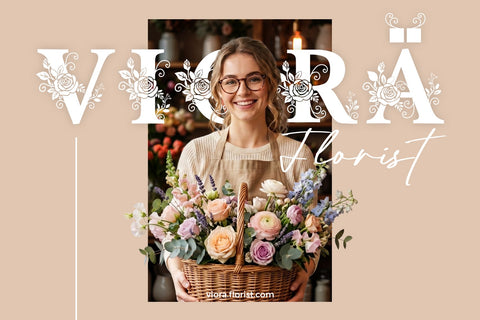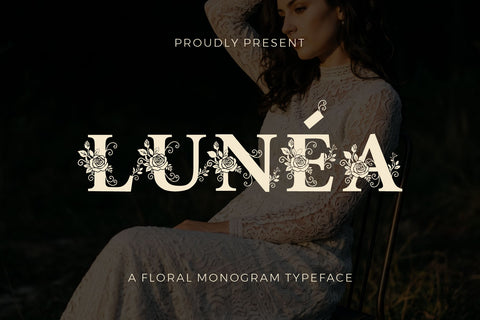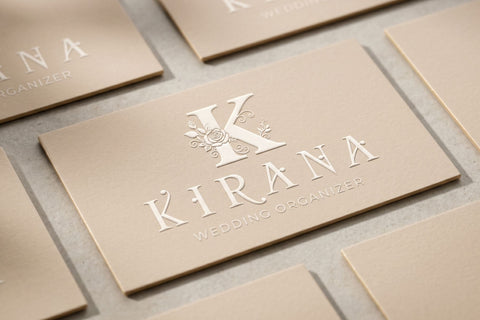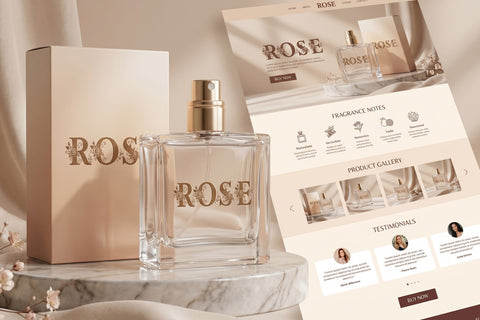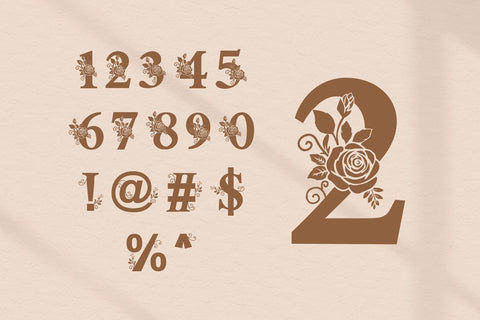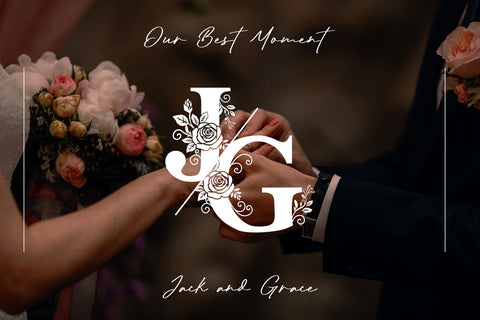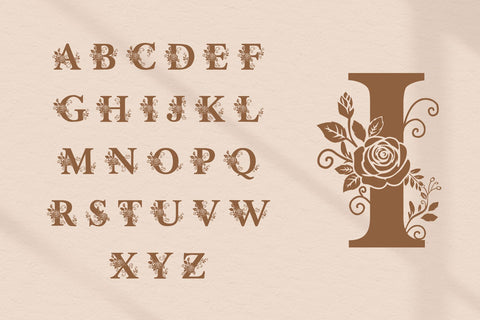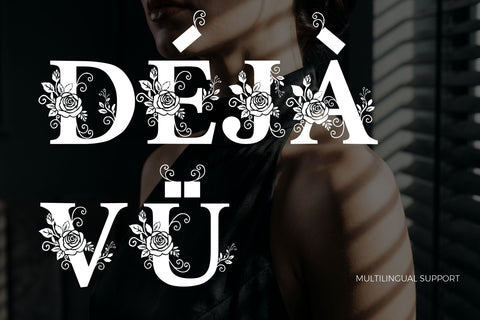
Lunéa | Floral Monogram Font
Lunea Floral Monogram Font is a premium decorative serif typeface designed to bring an exquisite blend of classical typography and natural botanical artistry to the Envato marketplace. Meticulously crafted for high-end design projects, this typeface integrates gorgeous, hand-drawn rose details and elegant vine tendrils directly into the anatomy of each uppercase character. The result is a striking visual asset that commands attention, making it an indispensable tool for designers working on luxury branding, high-fashion editorials, boutique packaging, and romantic event stationery. By balancing the structured, timeless weight of a traditional serif with the soft, organic flow of botanical illustrations, Lunea infuses an immediate sense of prestige, romance, and exclusivity into any layout it graces.
Engineered to meet the demands of a global creative audience, Lunea features comprehensive multilingual support that easily covers Latin-based languages across the globe. This international functionality ensures that your text layout remains intact without any missing glyphs or broken characters, whether you are designing for a local boutique or an international brand campaign. From striking logo marks and headline text to luxury cosmetics packaging, initial monograms, and wedding website headers, Lunea offers unparalleled creative versatility. The organized file structure guarantees effortless installation and complete compatibility with your favorite design programs on both Mac and Windows systems. Elevate the standard of your creative portfolio and deliver breathtaking, world-class visuals to your clients with this definitive floral monogram font package.